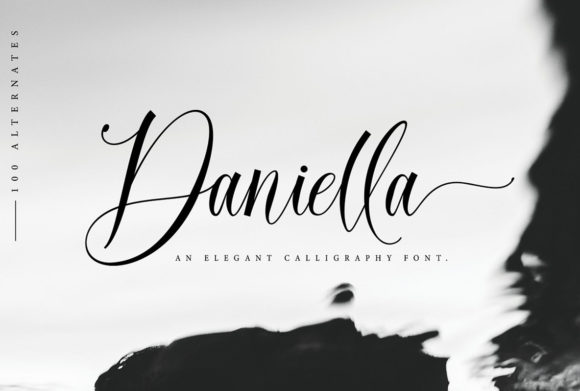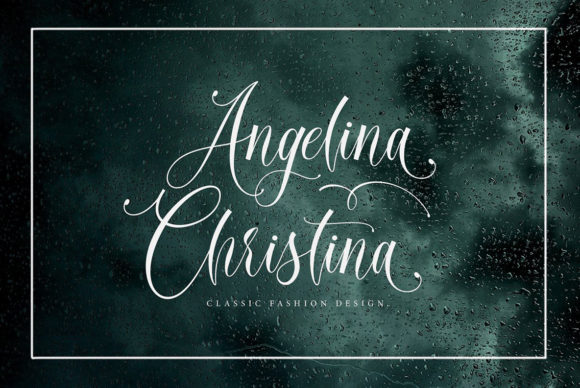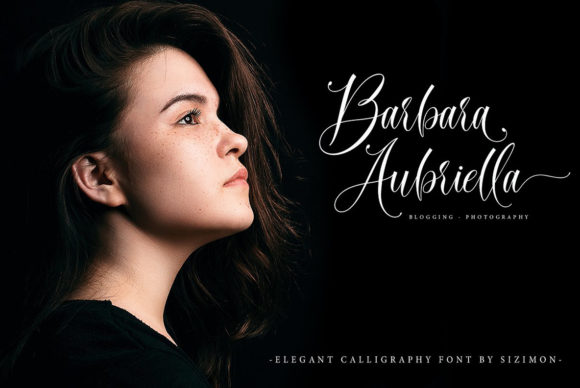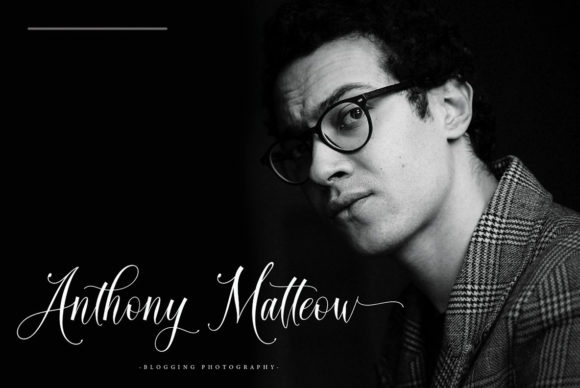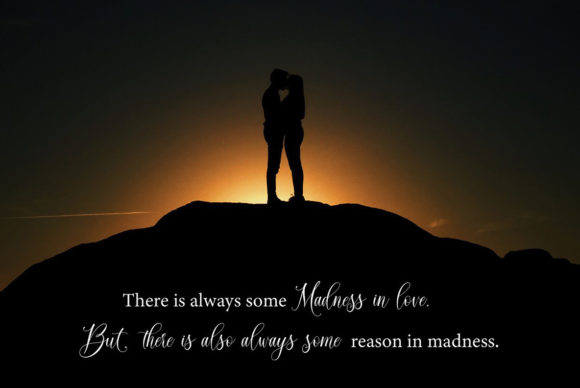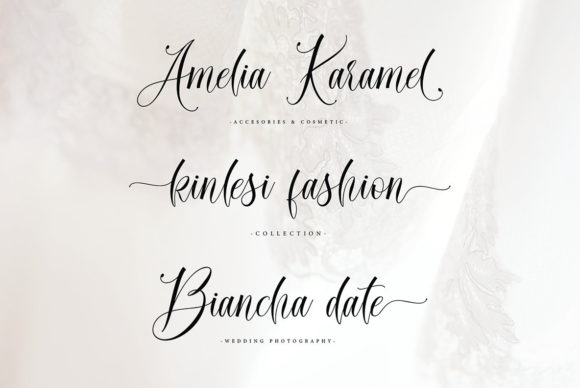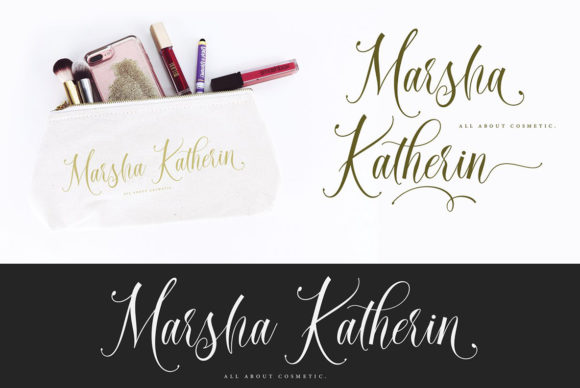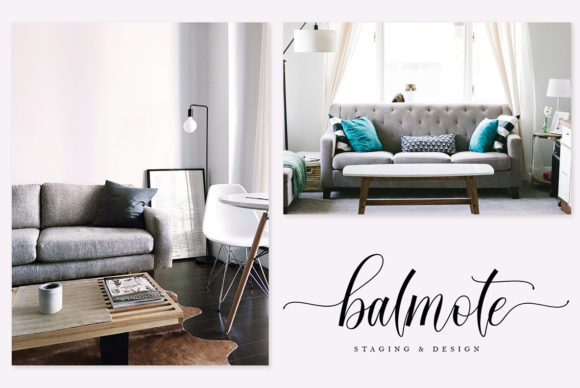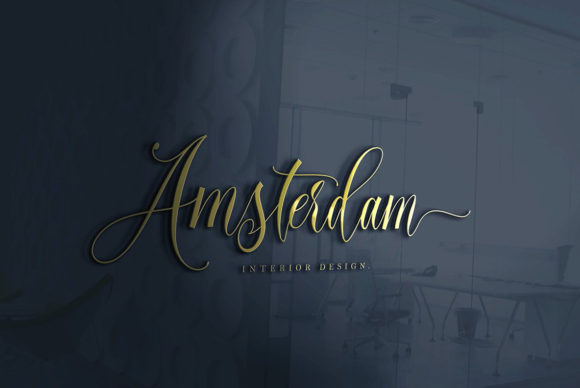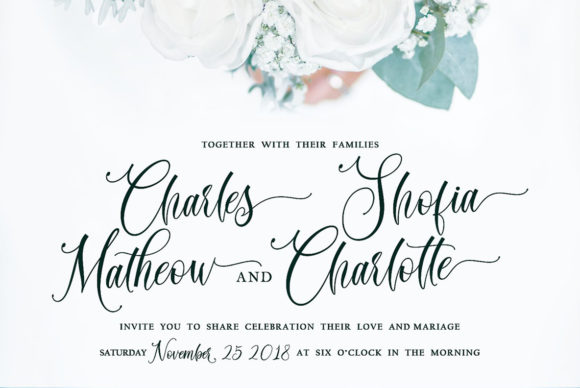
Daniella Font
About Daniella Font
Daniella is a magical and elegant font created by using a brush pen. Fall in love with Daniella’s authentic feel and use it to create gorgeous wedding invitations, beautiful stationary art, eye-catching social media posts, and cute greeting cards. This font is PUA encoded which means you can access all of the glyphs and swashes with ease! It also features a wealth of special features including alternate glyphs and ligatures. It features a varying baseline, smooth lines, gorgeous glyphs and stunning alternates.